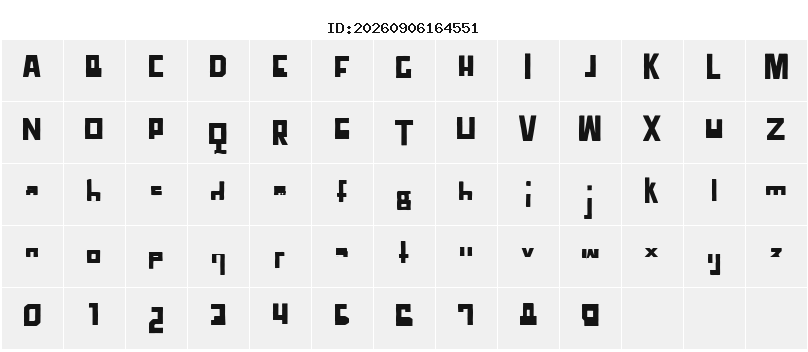
TTD Compadre Preview
• Font Name: TTD Compadre
• Designer: Robert Engle
About TTD Compadre.ttf
TTD Compadre.ttf is a modern, elegant sans-serif font designed for ultimate readability and visual harmony. Perfect for branding, headlines, web design, and print materials.